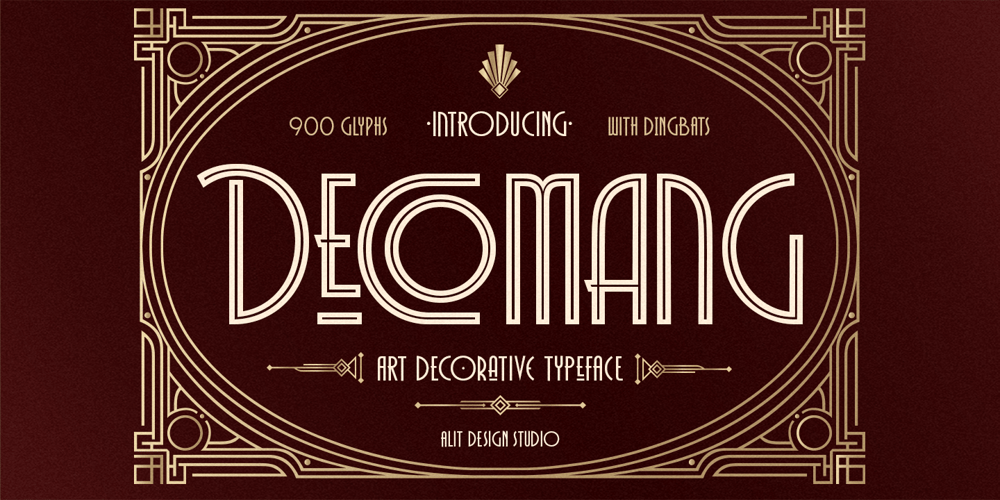
Decomang Font Family was designed by Alit Suarnegara and published by Alit Design. Decomang contains 1 styles and family package options. Decolmax Art Deco Typeface is a striking and elegant font inspired by the timeless sophistication of the Art Deco movement. Its design captures the geometric precision and ornamental flair characteristic of the 1920s and 1930s, while incorporating modern versatility for contemporary projects. Here’s an in-depth look at its features:Font Theme: Decolmax’s distinctive style features bold body lines, sharp angles, and decorative curves that exude refinement and luxury. Its structure balances intricate detailing with clean geometry, making it ideal for headlines, branding, packaging, and more.Features: Character Set: Boasts a comprehensive set of 835 characters, ensuring a wide range of creative possibilities. Stylistic Alternatives: Includes numerous alternative characters, offering flexibility for creating unique and varied typography styles. Ligatures: Features custom ligatures that blend letters seamlessly, adding an artistic and professional touch to your text. Swash Elements: Decorative swashes provide flourishes for letters, enhancing visual appeal in designs like invitations or logos. PUA Unicode: Encoded with PUA Unicode, making it accessible across software and easy to use in design programs without extra hassle. Multilingual Support: Offers robust multilingual support, accommodating various languages and special characters for a global audience. Usage Ideas: Luxurious branding and logos Sophisticated invitations or announcements Editorial design for fashion or lifestyle magazines Stylish posters or advertisements High-end packaging or labels Summary:Decolmax Art Deco Typeface combines the charm of vintage design with modern functionality. With its extensive features and adaptability, it serves as a premium choice for designers seeking a blend of elegance and creativity in their projects.